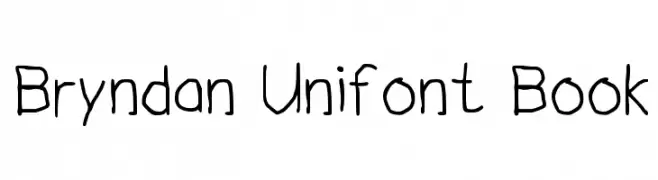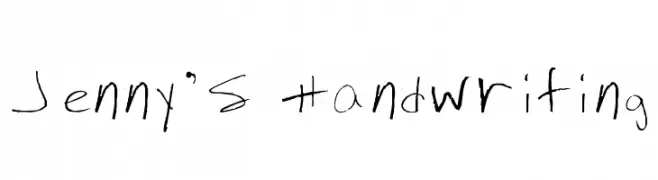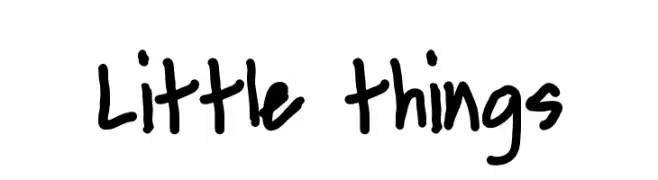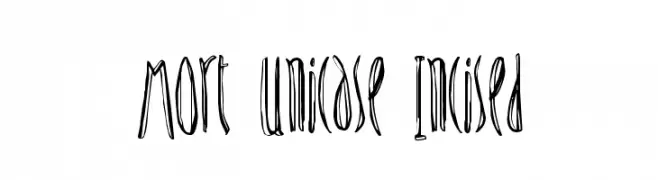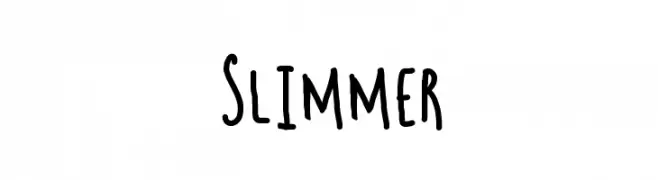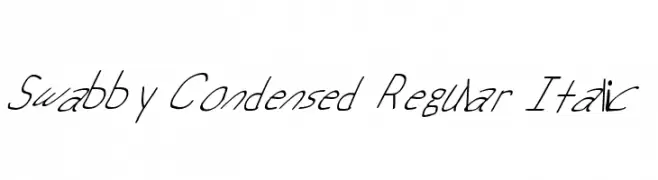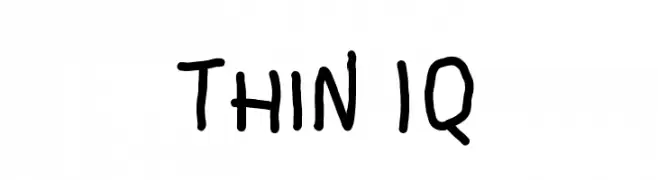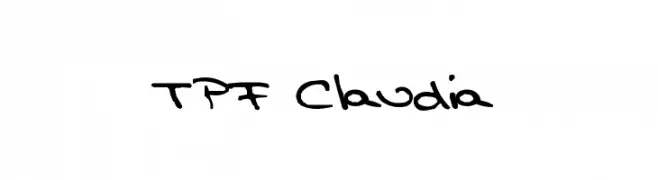
( Areeba )
A playful, handwritten font with tall, narrow characters and a casual style.
( B.W.P. Inc. )
A playful, handwritten font with a casual and informal style.
( Blacksun - refresh.rf.gd/ )
A casual, handwritten font with a playful and informal style.
( Brian Sullivan Design - www.briansullivandesign.com/ )
A condensed, italicized handwritten font with a fluid and playful style.
( Brynda1231 Industries )
A playful, handwritten font with irregular strokes and a casual style.
( Daniel Plant - www.fontmonster.org )
An artistic, incised font with elongated, narrow characters and a modern, decorative style.
( Font Environment - www.fontenvironment.com/ )
A bold, playful handwritten font with an informal and dynamic style.
( Fonts A Go-Go - www.postmodernvillage.com/fonts.html )
A casual, handwritten font with an authentic, personal touch.
( Fonts on us )
A playful, bold handwritten font with a casual and dynamic style.
( Fonts on us )
A playful, handwritten font with bold, rounded characters.